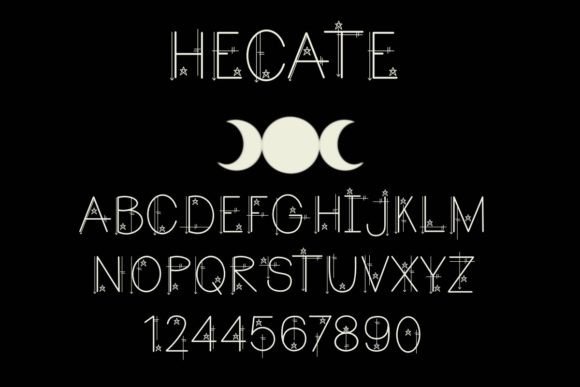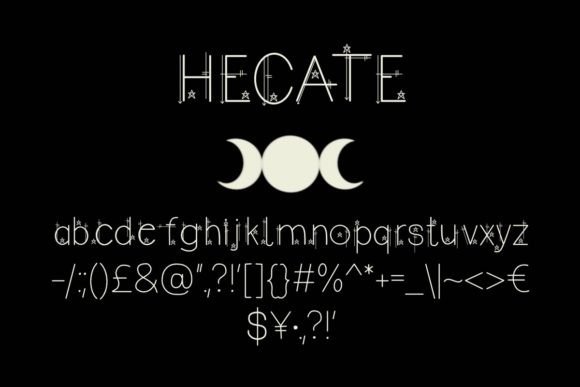
Hecate Font: A Magical Blend of Elegance and Witchcraft
In the realm of typography, few fonts manage to capture the essence of mystique and sophistication as effectively as the Hecate Font. This enchanting typeface seamlessly merges sacred geometry with the symbolism of a pentagram, resulting in a design that is both elegant and witchy. Ideal for a variety of creative projects, the Hecate Font has become a go-to choice for designers and crafters looking to infuse their work with a touch of magic.
The Inspiration Behind Hecate Font
The Hecate Font draws its inspiration from the rich tapestry of mystical and occult traditions. Named after Hecate, the ancient Greek goddess of magic, crossroads, and witchcraft, this font embodies the essence of her mystical powers. The inclusion of sacred geometry and a pentagram in its design pays homage to the spiritual and symbolic significance of these elements in various esoteric practices.
Key Features of Hecate Font
- Elegant and Witchy Appeal: The Hecate Font boasts an elegant appearance that is perfectly balanced with a witchy charm. This unique blend makes it an excellent choice for projects that require a touch of mystique and sophistication.
- Sacred Geometry and Pentagram: The incorporation of sacred geometry and a pentagram in the font’s design adds a layer of depth and symbolism. These elements are not only visually striking but also carry significant spiritual meaning, making the font perfect for projects related to spirituality, magic, and the occult.
- Versatility: The Hecate Font is incredibly versatile, making it suitable for a wide range of applications. From branding and logos to book covers, magazine articles, tags, and labels, this font can elevate any project with its unique charm.
Use Cases for Hecate Font
The Hecate Font’s versatility is one of its most compelling features. Here are some of the many ways designers and crafters can utilize this enchanting typeface:
- Branding and Logos: Create a lasting impression with a logo that combines elegance and mystique. The Hecate Font is perfect for businesses in the wellness, spirituality, and lifestyle sectors.
- Book Covers and Magazine Articles: Add a touch of class and witchy charm to your publications. The Hecate Font is ideal for genres such as fantasy, mystery, and spirituality.
- Tags and Labels: Give your handmade products, packaging, or DIY projects a personal touch with the Hecate Font. Its handwritten appeal makes it perfect for crafters and small business owners looking to stand out.
Why Choose Hecate Font?
In a world where typography plays a crucial role in communication and branding, the Hecate Font stands out for its unique blend of elegance and witchcraft. Here are a few reasons why designers and crafters are drawn to this magical typeface:
- Unique Aesthetic: The Hecate Font offers a distinctive look that is both sophisticated and enchanting. Its unique aesthetic ensures that your projects stand out in a crowded marketplace.
- Symbolism and Meaning: For those interested in the mystical and symbolic, the Hecate Font provides a way to incorporate these elements into their work. This is particularly appealing for projects that require a deeper level of storytelling or thematic exploration.
- Ease of Use: Despite its intricate design, the Hecate Font is easy to use and integrates well with various design software. This makes it accessible to both professional designers and hobbyists.
The Hecate Font is a captivating typeface that offers a perfect blend of elegance and witchy charm. Its unique design, rooted in sacred geometry and symbolism, makes it an excellent choice for a variety of creative projects. Whether you’re a designer looking to create stunning branding and publications or a crafter aiming to add a personal touch to your products, the Hecate Font is sure to inspire and elevate your work. With its versatility, aesthetic appeal, and rich symbolism, this magical font is poised to become a staple in the toolkit of creatives seeking to infuse their projects with a touch of magic.